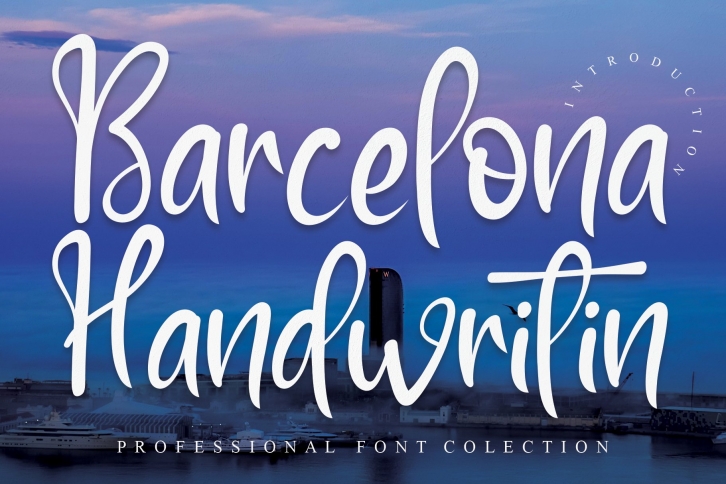
Barcelona Handwritin is a trendy and unique font with an authentic style. It was designed by andikastudio and it's a great choice for creative people who need such a font. It was released on October 30, 2020 and the file size is 13.98 MB. Barcelona Handwritin will add an organic vibe to any design idea!